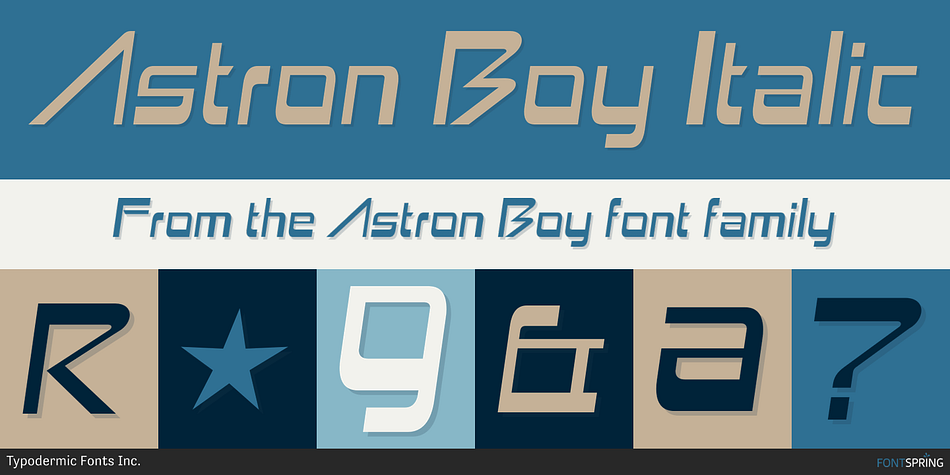
Astron Boy Italic
Astron Boy is a display font family. This typeface has four styles and was published by Typodermic Fonts Inc.
Introducing the rounded-square Astron Boy typeface, a font that’s born from the technologically advanced world of vintage laserdisc video games. This font is the product of the inspiration garnered from Astron Belt, a game that pushed the boundaries of gaming technology in its time.
With a variety of styles to choose from, including standard, italic, shaded, and striped, you can add a touch of geeky, techno flair to your designs. The Astron Boy typeface is perfect for those looking to infuse their work with a sense of nostalgia for the glory days of arcade gaming.
So, whether you’re a retro gaming fanatic or just looking for a font that stands out from the crowd, look no further than Astron Boy. With its clean lines and unique style, this font is sure to turn heads and make a lasting impression. Get your hands on Astron Boy today and start designing with a touch of techno style!